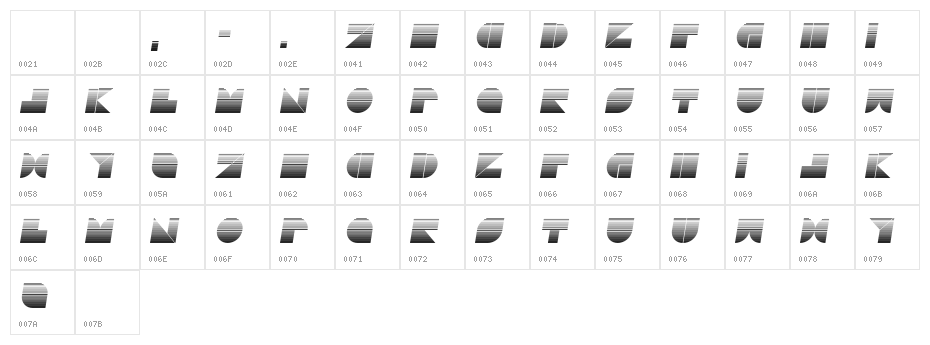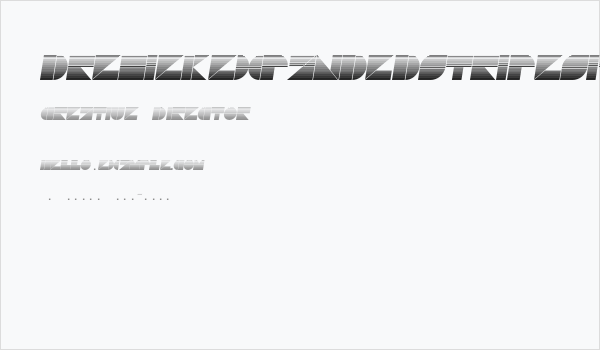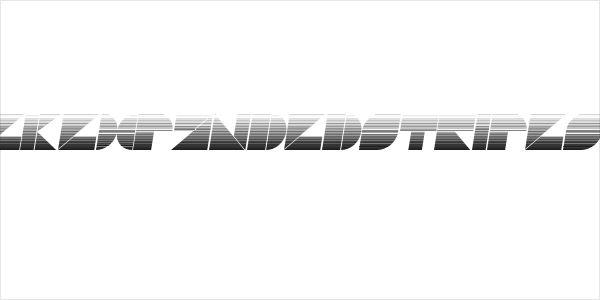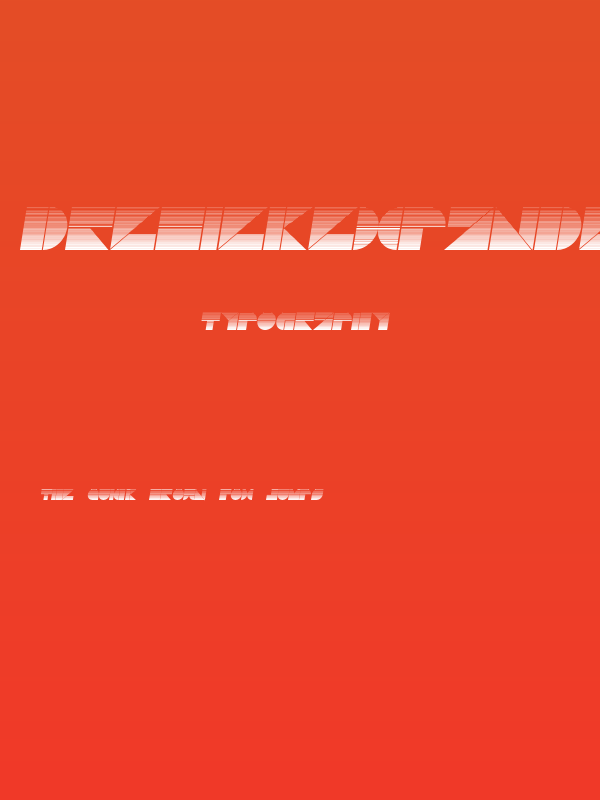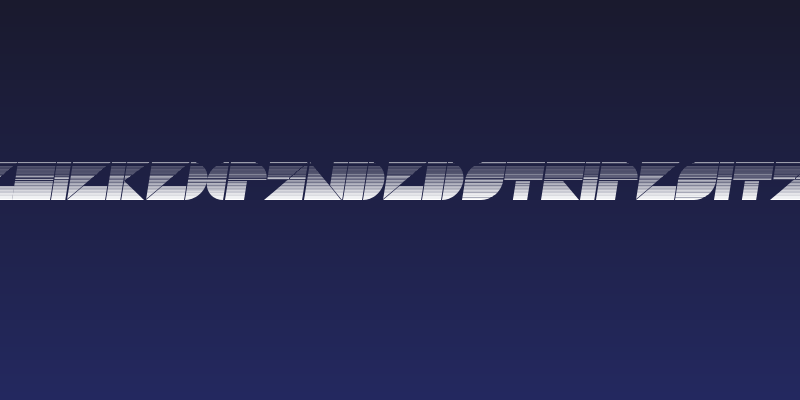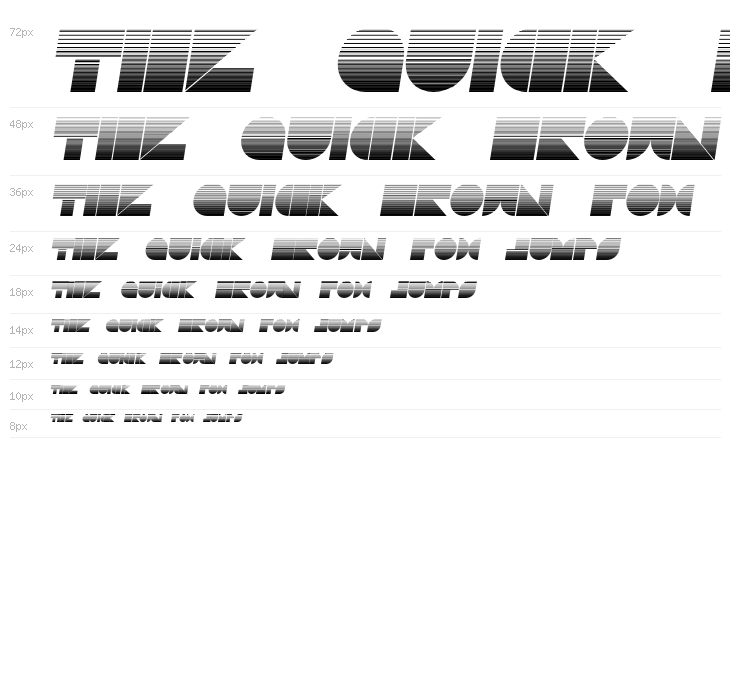
DrebiekExpandedStripesItalic Font
DrebiekExpandedStripesItalic Description
This font features a bold, modern design with a distinctive striped pattern running horizontally across each character. The letters are expanded and italicized, giving them a dynamic and forward-leaning appearance. The uppercase and lowercase letters maintain a consistent style, with sharp angles and clean lines that create a sense of movement. The numbers and special characters are designed to match the overall aesthetic, ensuring a cohesive look across all elements. This font's unique style makes it stand out, making it ideal for projects that require a bold and eye-catching typeface.
| Proposed Projects | Ideal for futuristic branding, tech-related designs, or any project needing a striking, modern typeface. |